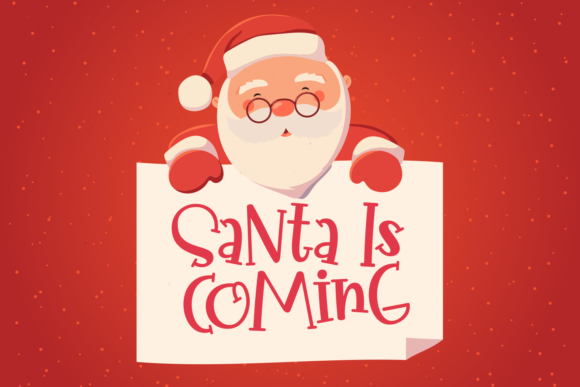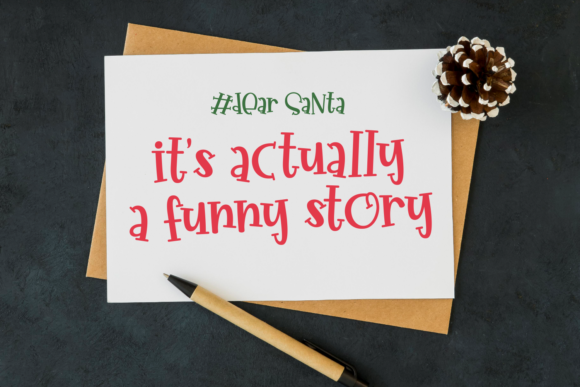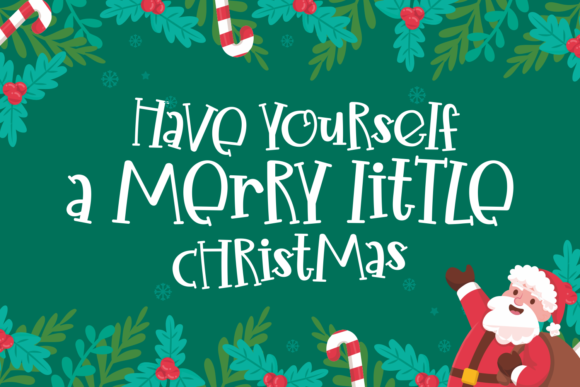
The Magic of For Santa Font: A Designer’s Delight
It’s the most wonderful time of the year – and I’m not just talking about the holiday season! As a designer, I live for moments like these, when I get to unleash my creativity and bring festive cheer to life. But, I have to admit, there was a time when I struggled to find the perfect font for a Christmas project. The client wanted something fun, quirky, and eye-catching, but everything I tried seemed either too boring or too over-the-top. That’s when I stumbled upon the For Santa Font – and let me tell you, it was love at first sight! 🎉
For Santa is a fun and quirky display font that’s ideal for each of your festive designs, as well as any other creative idea that needs a trendy touch. Here’s what I’m obsessed with:
- ✨ Unique and playful design that’s perfect for grabbing attention
- ✅ Highly legible, even at smaller sizes
- 🎉 Extensive character set, including OpenType features and glyphs
Of course, no font is perfect, and For Santa has a few minor quirks:
- 🤔 Some letters may appear a bit narrow or condensed, which can affect readability at very small sizes
- ⚠️ Limited availability of certain special characters or diacritical marks
The Story Behind For Santa
For Santa was designed by a talented type designer who wanted to capture the magic and playfulness of the holiday season. Inspired by vintage Christmas posters and modern digital art, For Santa combines classic charm with a modern twist. The result is a font that’s both nostalgic and fresh – perfect for designers looking to add some festive flair to their work.
| Font Name | For Santa Font |
| Author | Dani (7NTypes) |
| Is For Santa suitable for body text? | While For Santa is a beautiful font, it’s best suited for display text, headlines, and titles. Its unique design may not be ideal for long blocks of body text. |